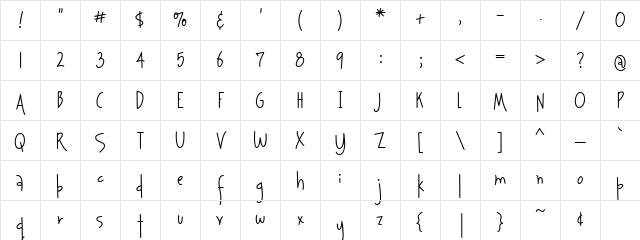
Journaling Hand Regular
Foundry: Typadelic Fonts
Designer: Ronna Penner
Design Context for Journaling Hand
Journaling Hand flows with the natural rhythm of handwritten lettering, making it ideal for designs that call for warmth and personal expression.
Font Pairing: Combine Journaling Hand with a simple geometric sans for maximum contrast - the tension between flowing curves and clean structure is a classic typographic pairing.
Pro Tip: Use Journaling Hand for short runs of text - names, titles, or taglines. Extended body copy in script faces tires the eye quickly.